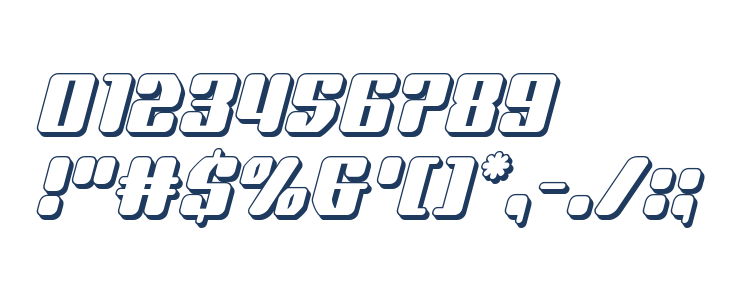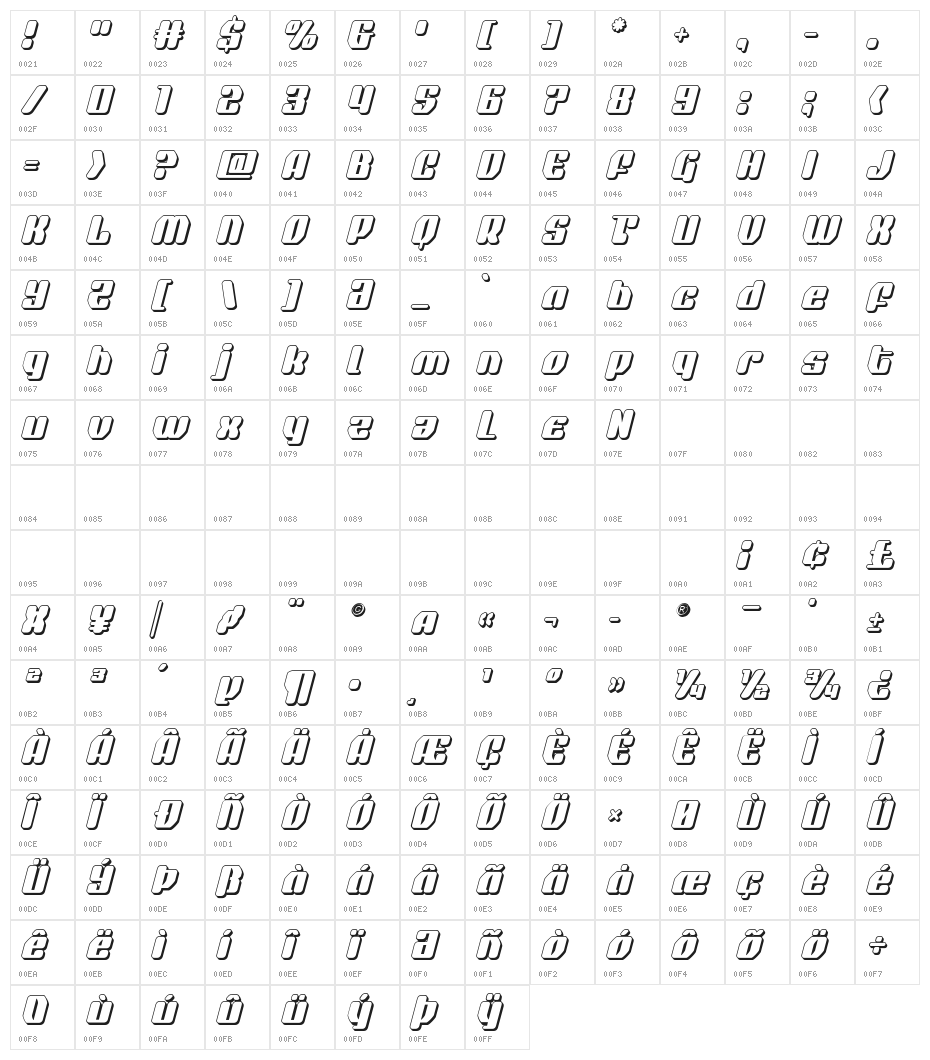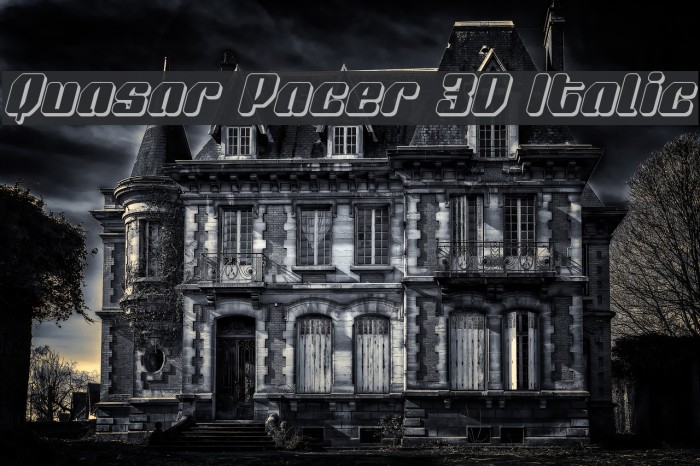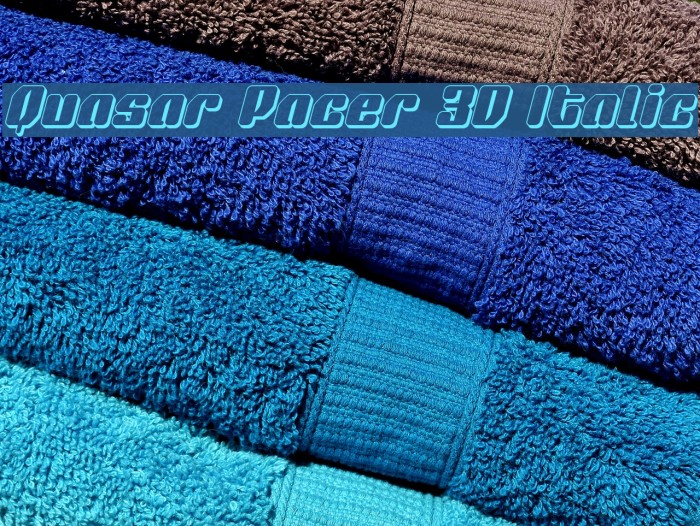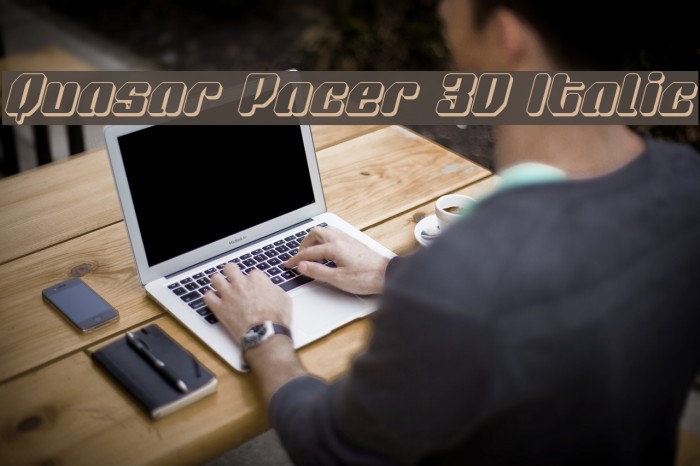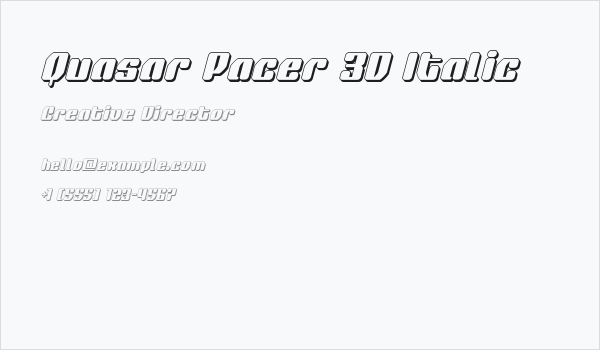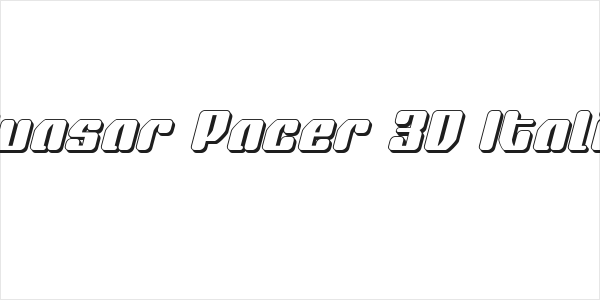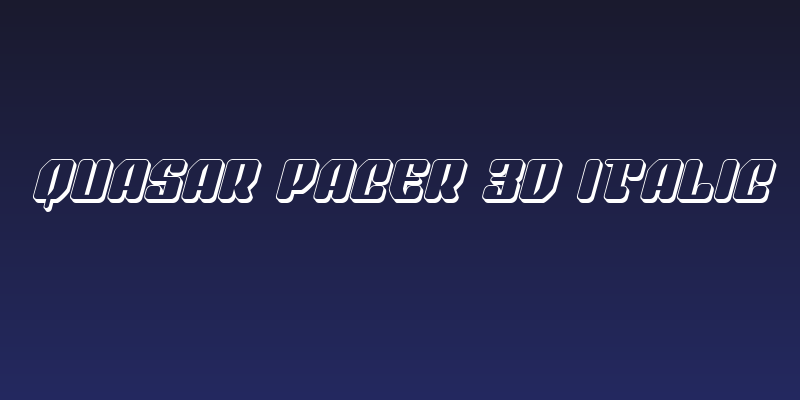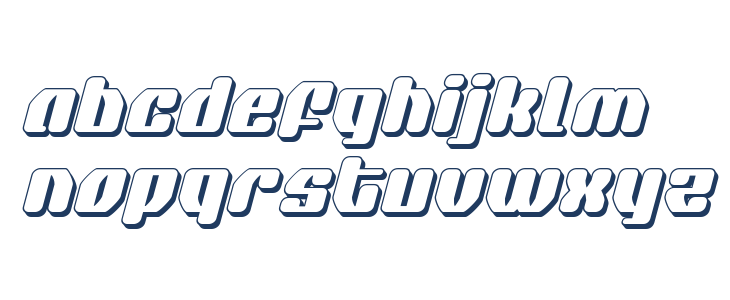
Quasar Pacer 3D Italic Font
Quasar Pacer 3D Italic Description
This font features a bold, three-dimensional style with a distinct italic slant, giving it a dynamic and futuristic appearance. The characters are outlined with a shadow effect that enhances the 3D illusion, making them stand out prominently. The overall design is geometric, with sharp angles and clean lines, creating a sense of movement and energy. The uppercase and lowercase letters maintain a consistent style, while the numerals and special characters complement the alphabet with similar boldness and structure. This font is ideal for projects that require a modern and eye-catching aesthetic.
| Proposed Projects | Ideal for sci-fi themed posters, video game graphics, and modern branding projects. |